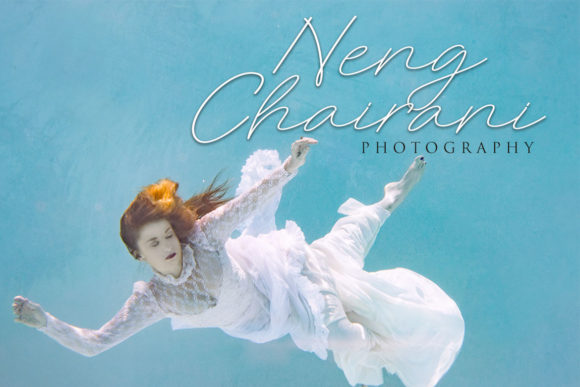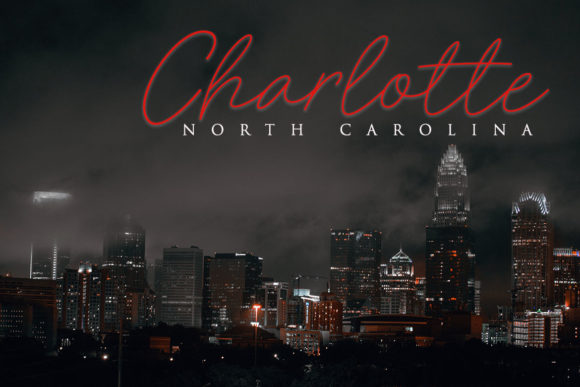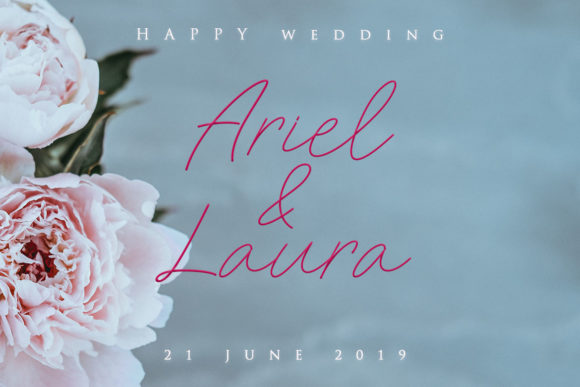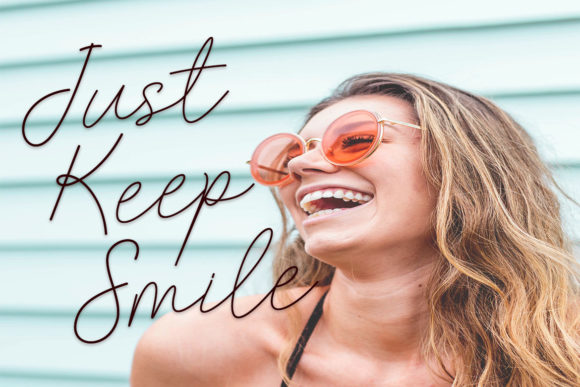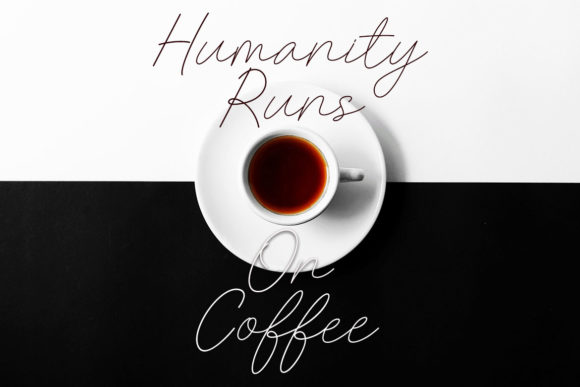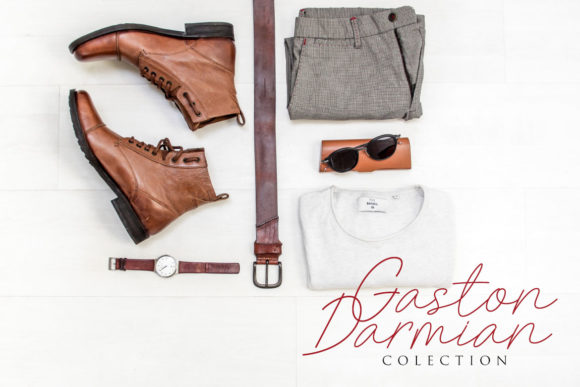
The Perfect Script: Discovering the Timeless Elegance of Charlotte Sweet Font
Remember that moment when you stumbled upon the perfect font for your project? The one that made your design come alive and speak directly to your audience? For designers, that moment is what we live for. It’s a mix of creativity, skill, and a dash of luck that leads us to that perfect combination of style and functionality. And for those who have been searching, we’re excited to introduce you to the Charlotte Sweet Font – a modern script that embodies the essence of classy design.
With its versatility and sophistication, the Charlotte Sweet Font is a valuable asset for any designer. Whether you’re working on a photography project, creating a signature, or developing a brand identity, this elegant typeface is sure to make your designs stand out. Its strong and refined style makes it an ideal choice for magazine layouts, wedding invitations, and any other design that requires a touch of luxury and sophistication.
- Unique Characteristics: Charlotte Sweet features a unique, elegant script style with a touch of whimsy, making it perfect for creating eye-catching titles and headings.
Charlotte Sweet Font Review
Overall, I think the Charlotte Sweet Font is a delightful and charming addition to any design project. ✨ It’s perfect for creating a whimsical and feminine feel, which makes it ideal for wedding invitations, baby shower invitations, and other occasions where a touch of sweetness is needed. ✨ The font is also highly customizable, allowing you to adjust the size, color, and spacing to fit your design needs.
However, I do have a few concerns about the font’s limitations. ⚠️ For one, the Charlotte Sweet Font may not be the best choice for text-heavy designs, as the letters can become cluttered and difficult to read. ⚠️ Additionally, the font’s cursive style may not be suitable for headings or titles, as it can be too ornate and distracting.
- ✨ Charming and whimsical feel
- ✨ Highly customizable
- ✨ Perfect for feminine and sweet designs
- ⚠️ May not be suitable for text-heavy designs
- ⚠️ Cursive style may not be ideal for headings or titles
Overall, I think the Charlotte Sweet Font is a great choice for designers looking to add a touch of sweetness and whimsy to their designs. Just be mindful of its limitations and use it sparingly to avoid overwhelming your audience.
Great Vibes Font is a beautiful, handwritten font that is perfect for creating a whimsical and romantic atmosphere. It is ideal for use in wedding invitations, birthday cards, and other special occasions where a touch of elegance is needed.
Compared to Charlotte Sweet Font, Great Vibes Font has a more cursive and flowing feel, while Charlotte Sweet Font has a more playful and childlike quality. Great Vibes Font is also more versatile and can be used in a wide range of contexts, from formal to informal.
Lobster Font is a fun, cursive font that is perfect for adding a touch of playfulness to your designs. It is ideal for use in titles, headings, and other text elements where a bold and eye-catching effect is needed.